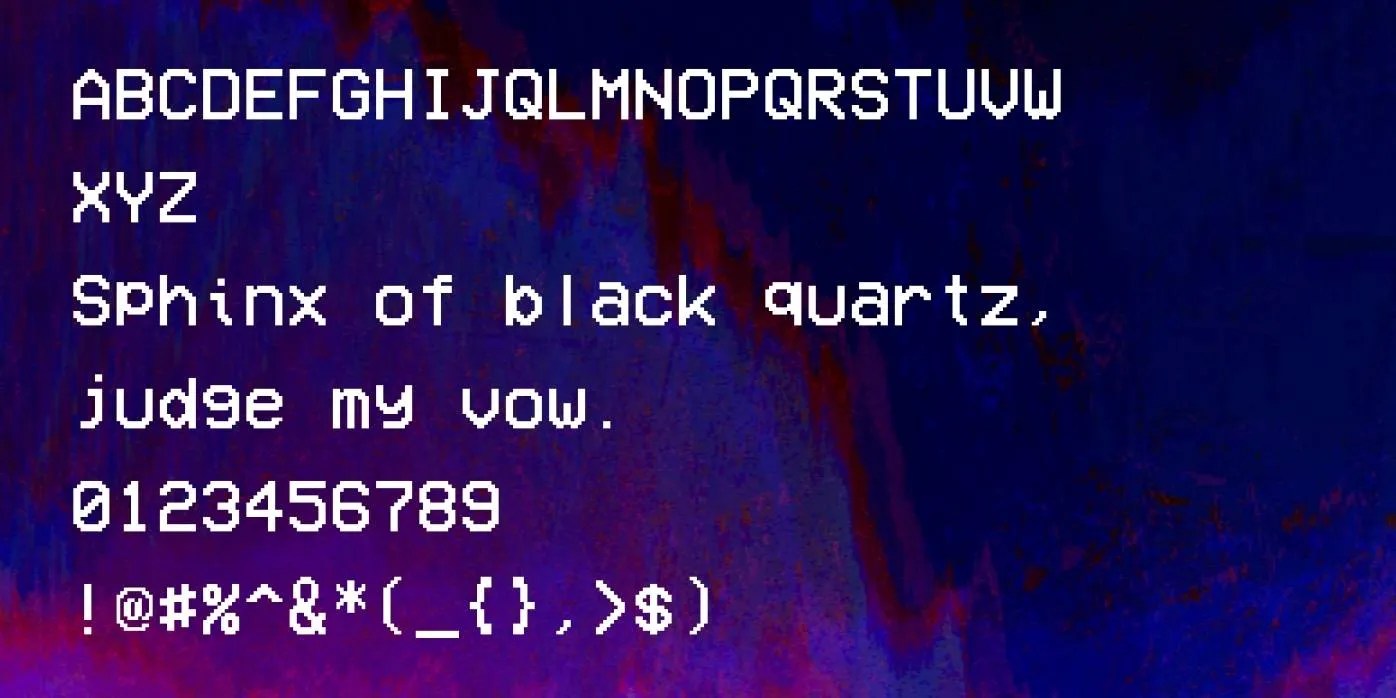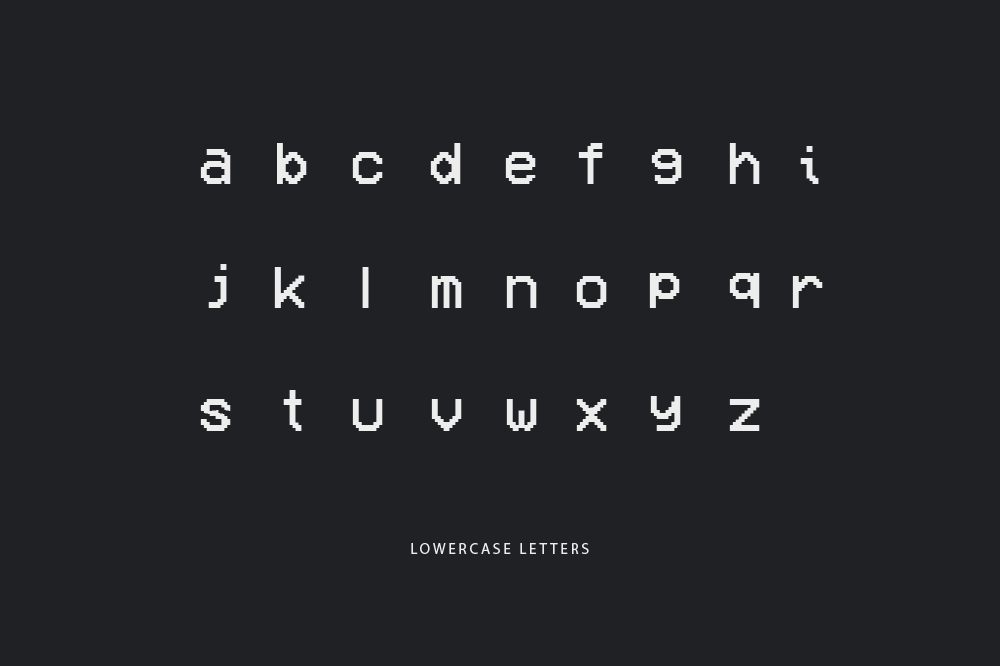
Vcr Osd Mono Bold Font Download . Vcr osd mono font was inspired by 1970’s american logos, providing you with an elegant font for free to download for personal use in posters,. The font contains characters from the following. The vcr osd mono font has been downloaded 148,672 times. Vcr osd mono font was inspired by 1970’s american logos, providing you with an elegant font for free to download for personal use in posters,. Vcr osd mono font contains 206 defined characters and 153 unique glyphs. Vcr osd mono font | dafont.com english français español deutsch italiano português. Download and install the vcr osd mono font by mrmanet.
Vcr osd mono font was inspired by 1970’s american logos, providing you with an elegant font for free to download for personal use in posters,. Download and install the vcr osd mono font by mrmanet. The font contains characters from the following. Vcr osd mono font | dafont.com english français español deutsch italiano português. Vcr osd mono font contains 206 defined characters and 153 unique glyphs. The vcr osd mono font has been downloaded 148,672 times. Vcr osd mono font was inspired by 1970’s american logos, providing you with an elegant font for free to download for personal use in posters,.
Vcr Osd Mono Bold Font Download The font contains characters from the following. Vcr osd mono font contains 206 defined characters and 153 unique glyphs. Vcr osd mono font was inspired by 1970’s american logos, providing you with an elegant font for free to download for personal use in posters,. Download and install the vcr osd mono font by mrmanet. Vcr osd mono font | dafont.com english français español deutsch italiano português. Vcr osd mono font was inspired by 1970’s american logos, providing you with an elegant font for free to download for personal use in posters,. The font contains characters from the following. The vcr osd mono font has been downloaded 148,672 times.
VCR OSD Mono Font Free Download Vcr Osd Mono Bold Font Download Vcr osd mono font contains 206 defined characters and 153 unique glyphs. Vcr osd mono font | dafont.com english français español deutsch italiano português. The font contains characters from the following. The vcr osd mono font has been downloaded 148,672 times. Vcr osd mono font was inspired by 1970’s american logos, providing you with an elegant font for free to. Vcr Osd Mono Bold Font Download.
VCR OSD Mono free Font in ttf format for free download 24.16KB Vcr Osd Mono Bold Font Download Vcr osd mono font was inspired by 1970’s american logos, providing you with an elegant font for free to download for personal use in posters,. Vcr osd mono font | dafont.com english français español deutsch italiano português. Vcr osd mono font contains 206 defined characters and 153 unique glyphs. The font contains characters from the following. Vcr osd mono font. Vcr Osd Mono Bold Font Download.
Vcr Osd Mono Font Free Download Vcr Osd Mono Bold Font Download The font contains characters from the following. Vcr osd mono font contains 206 defined characters and 153 unique glyphs. Download and install the vcr osd mono font by mrmanet. The vcr osd mono font has been downloaded 148,672 times. Vcr osd mono font was inspired by 1970’s american logos, providing you with an elegant font for free to download for. Vcr Osd Mono Bold Font Download.
VCR OSD Mono Font Free Download Vcr Osd Mono Bold Font Download The vcr osd mono font has been downloaded 148,672 times. The font contains characters from the following. Vcr osd mono font | dafont.com english français español deutsch italiano português. Vcr osd mono font was inspired by 1970’s american logos, providing you with an elegant font for free to download for personal use in posters,. Vcr osd mono font contains 206. Vcr Osd Mono Bold Font Download.
VCR OSD Mono Free Pixel Font Hipsthetic Vcr Osd Mono Bold Font Download and install the vcr osd mono font by mrmanet. The font contains characters from the following. Vcr osd mono font contains 206 defined characters and 153 unique glyphs. Vcr osd mono font was inspired by 1970’s american logos, providing you with an elegant font for free to download for personal use in posters,. Vcr osd mono font | dafont.com. Vcr Osd Mono Bold Font Download.
VCR OSD Mono Font in truetype .ttf opentype .otf format free and easy Vcr Osd Mono Bold Font Download Vcr osd mono font was inspired by 1970’s american logos, providing you with an elegant font for free to download for personal use in posters,. The font contains characters from the following. Vcr osd mono font was inspired by 1970’s american logos, providing you with an elegant font for free to download for personal use in posters,. Vcr osd mono. Vcr Osd Mono Bold Font Download.
VCR OSD Mono Font Download Fonts4Free Vcr Osd Mono Bold Font Download The font contains characters from the following. Download and install the vcr osd mono font by mrmanet. Vcr osd mono font contains 206 defined characters and 153 unique glyphs. Vcr osd mono font was inspired by 1970’s american logos, providing you with an elegant font for free to download for personal use in posters,. The vcr osd mono font has. Vcr Osd Mono Bold Font Download.
VCR OSD Mono Font Free Download Vcr Osd Mono Bold Font Download The font contains characters from the following. Vcr osd mono font | dafont.com english français español deutsch italiano português. The vcr osd mono font has been downloaded 148,672 times. Vcr osd mono font was inspired by 1970’s american logos, providing you with an elegant font for free to download for personal use in posters,. Vcr osd mono font was inspired. Vcr Osd Mono Bold Font Download.
Vcr Default Font at Allison Rouse blog Vcr Osd Mono Bold Font Download and install the vcr osd mono font by mrmanet. Vcr osd mono font was inspired by 1970’s american logos, providing you with an elegant font for free to download for personal use in posters,. Vcr osd mono font was inspired by 1970’s american logos, providing you with an elegant font for free to download for personal use in posters,.. Vcr Osd Mono Bold Font Download.